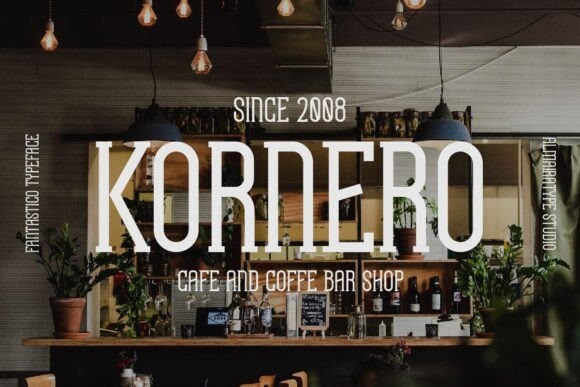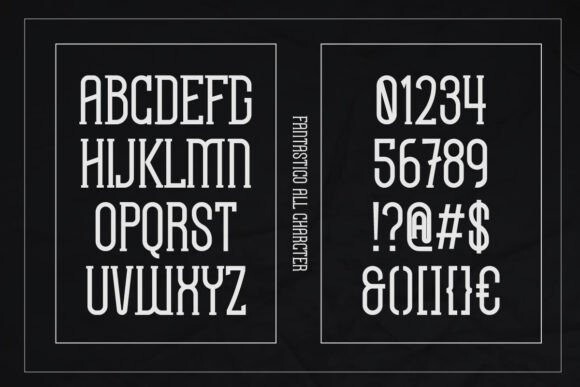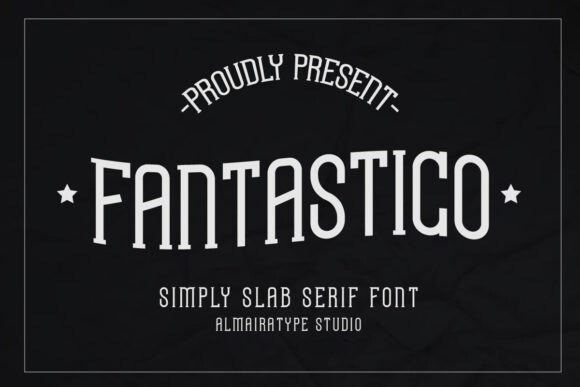
Fantastico Slab Font
Fantastico Slab Font, is a simply slab serif font. It is suitable for logotypes, headlines, corporate identity, brand identity, apparel industry, posters, music, movies, games, magazines or any of your creative design projects.